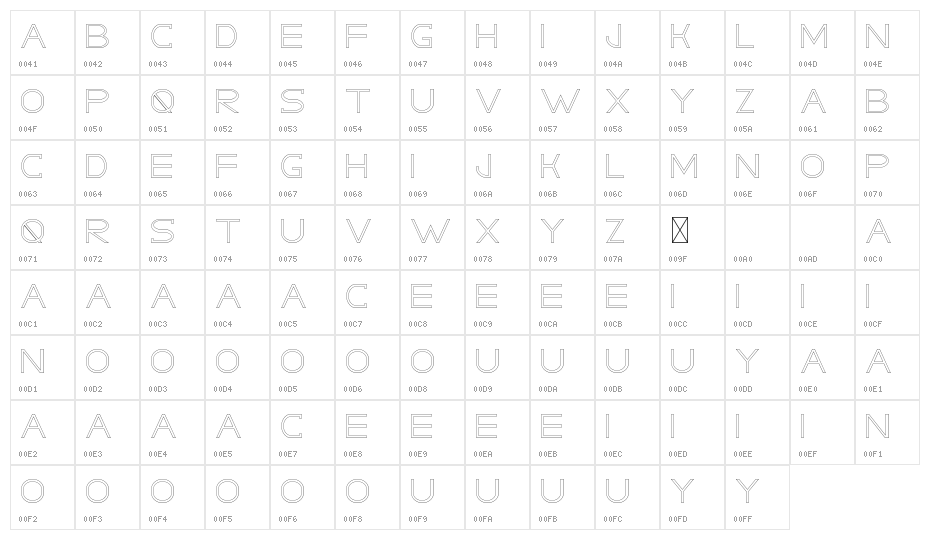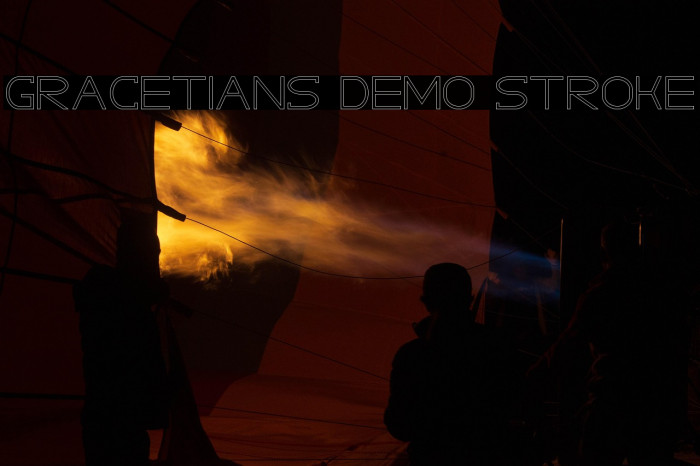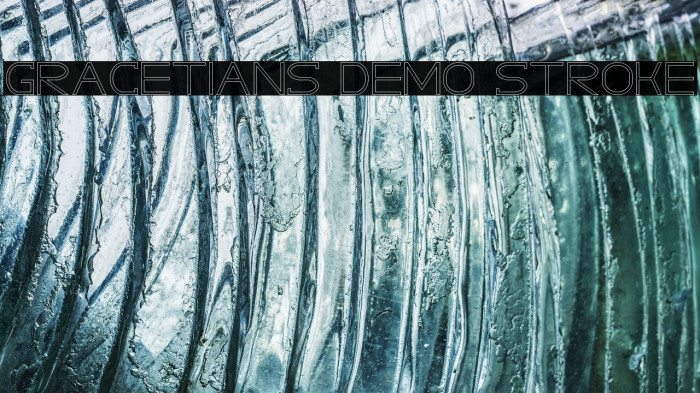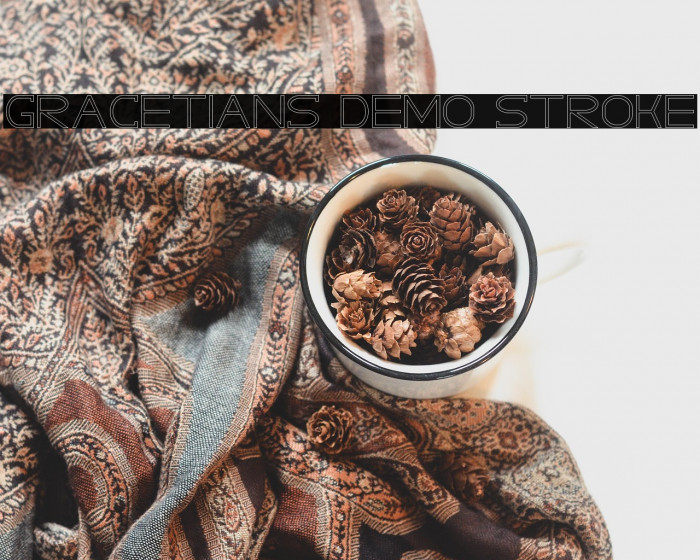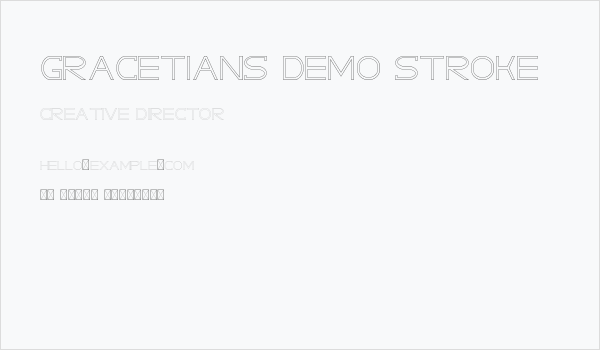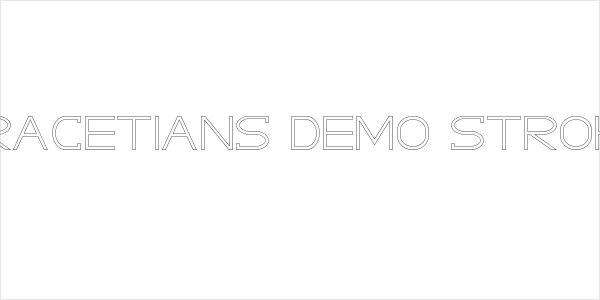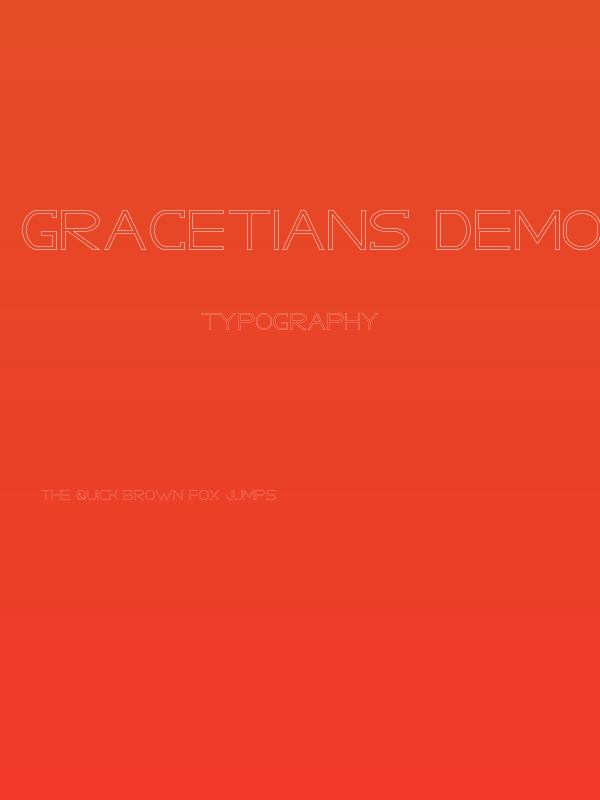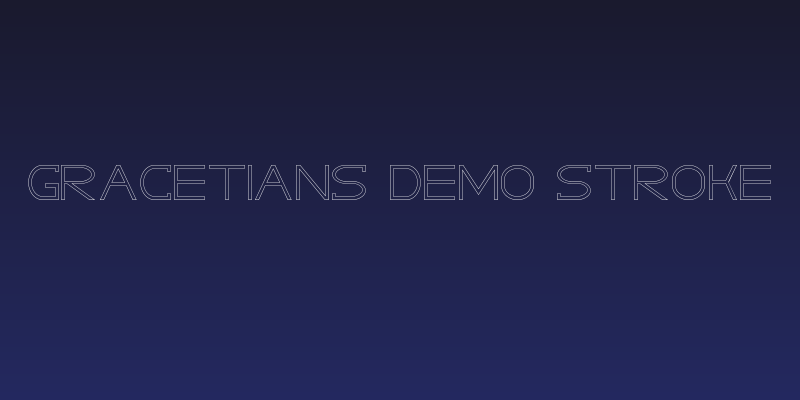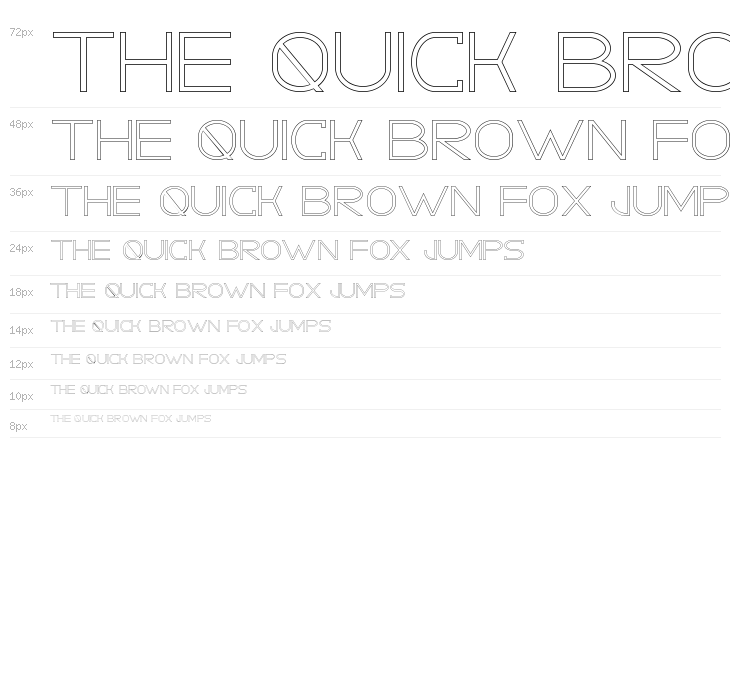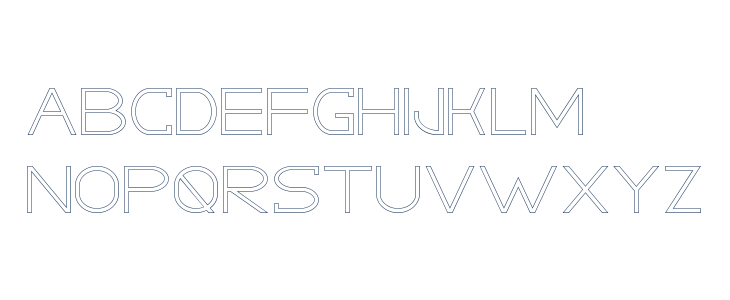
GRACETIANS DEMO Stroke Font
GRACETIANS DEMO Stroke Description
This font features a modern, geometric design with clean lines and a minimalist aesthetic. Each character is outlined with a consistent stroke width, creating a hollow effect that emphasizes the shape of the letters. The uppercase letters are uniform in height, contributing to a balanced and structured appearance. The font's design is sleek and contemporary, making it suitable for projects that require a futuristic or technical feel. Its simplicity and clarity ensure readability while maintaining a distinctive style.
| Proposed Projects | Ideal for tech branding, digital interfaces, modern posters, and futuristic designs. |